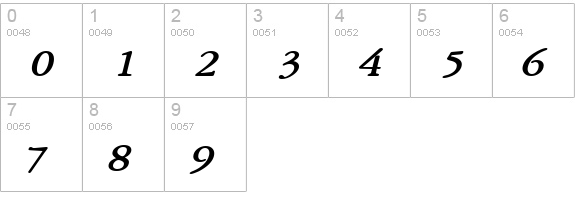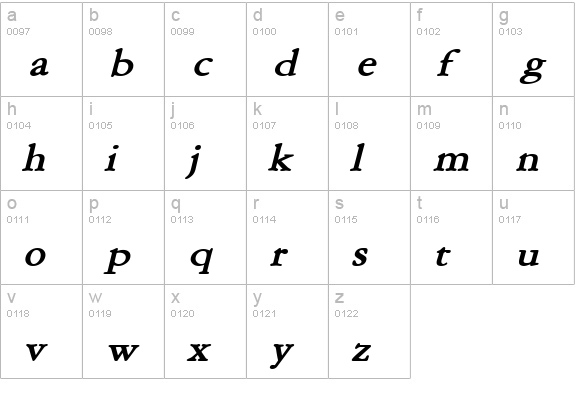
Amery Wide BoldItalic Font Details
Amery Wide BoldItalic is a distinctive, extended-width variant in the Amery typeface family \xE2\x80\x94 well suited to design and typography projects.
Amery Wide BoldItalic is a modern and stylish font that exudes confidence and sophistication. With its bold strokes and elegant italics, this typeface is perfect for adding a touch of flair to your projects. The wide spacing gives Amery Wide a contemporary and eye-catching look that is sure to make a statement. The best part? This font is available for free download at FontsMarket.com, making it easily accessible for all your design needs. Whether you're working on a branding project, creating eye-catching titles, or designing a sleek website, Amery Wide BoldItalic is a versatile font that will elevate your work to the next level. Download it now and add a touch of modern elegance to your designs.